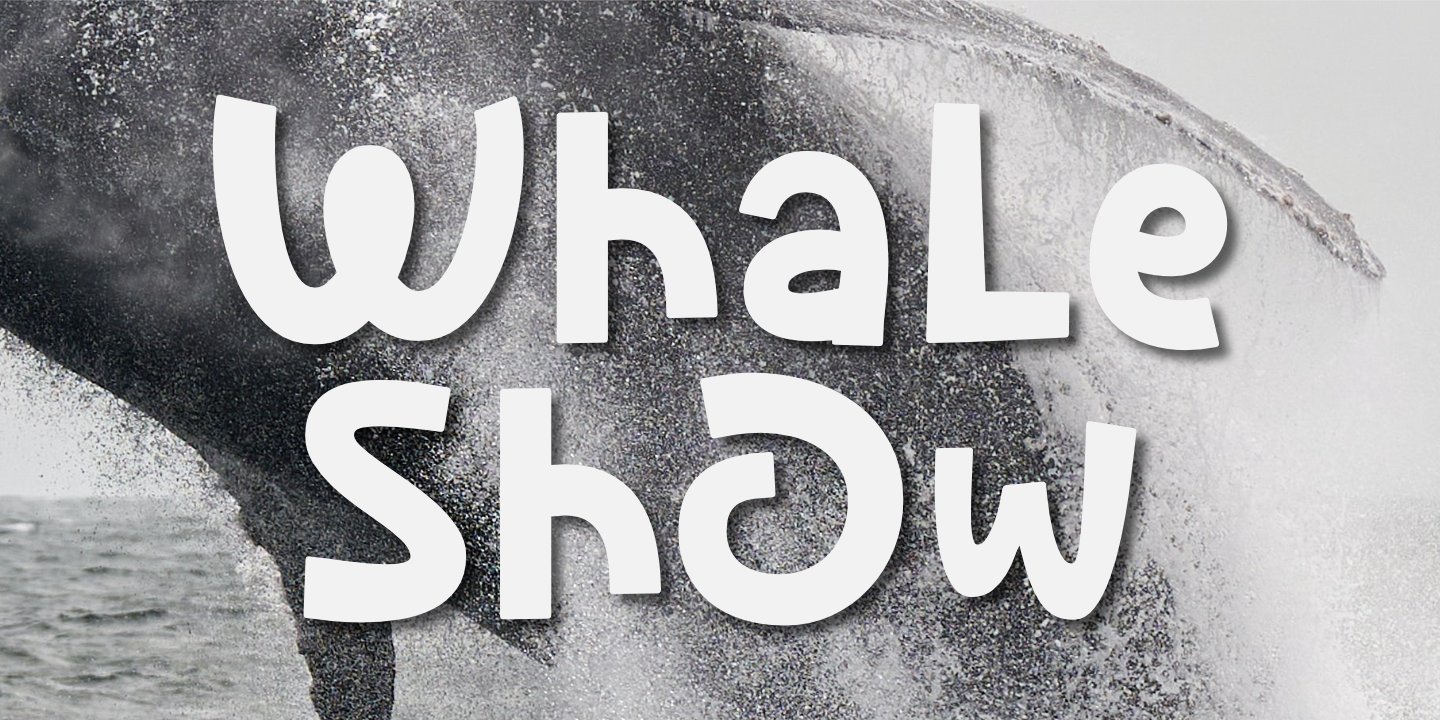
Whale Show Font excels in diverse design applications including marine wildlife exhibitions, ocean conservation campaigns, aquarium visitor centers, whale watching tour companies, marine biology educational materials, oceanographic research presentations, maritime museum displays, and spectacular marine entertainment venues that require oceanic sophistication and majestic marine elegance.
What makes Whale Show Font truly exciting is its magnificent embodiment of oceanic grandeur and marine spectacle that captures the awe-inspiring presence of the ocean's largest mammals and the breathtaking beauty of whale encounters that leave spectators speechless with wonder and deep respect for marine life. This majestic typeface features flowing, graceful letterforms with subtle wave-like elements that evoke images of gentle giants breaching the surface, their massive forms creating spectacular displays against endless ocean horizons. The font's marine character reflects the power and grace of whales in their natural habitat, making it perfect for brands that want to communicate oceanic majesty, marine conservation, and the spectacular experiences that connect humans with the natural world's most magnificent creatures. Its oceanic appearance creates immediate associations with marine wildlife and spectacular nature shows.
The Whale Show Font family includes multiple weights and marine variations designed to enhance oceanic communication. The collection features Light, Regular, Medium, Bold, and Black weights, each maintaining the font's characteristic marine appeal while offering different levels of oceanic presence. The family also includes alternate characters with varying wave effects, marine elements that simulate ocean movements, and stylistic sets that create flowing text arrangements reflecting the grace of whale migrations. Additional features include contextual alternates and oceanic ligatures that enhance the authentic, marine appearance.
Marine and conservation professionals consistently choose Whale Show Font Free Download for projects requiring authentic oceanic character and marine credibility. The font's majestic nature makes it particularly effective for aquariums, conservation organizations, and marine tourism companies targeting audiences who appreciate whale conservation and spectacular marine experiences. Its excellent readability across various applications ensures effective communication while maintaining the distinctive marine character that conveys oceanic authority and conservation importance.
The advanced OpenType capabilities of Whale Show Font include contextual alternates, stylistic sets, and comprehensive character support that accommodates marine terminology and conservation expressions while preserving the font's authentic oceanic character. The technical precision ensures consistent marine appearance across different conservation applications and oceanic platforms.
For creative professionals seeking a typeface that embodies genuine marine heritage and oceanic sophistication, Whale Show Font offers unparalleled majestic appeal and conservation elegance. Its ability to convey oceanic authority while maintaining functional communication makes it invaluable for marine organizations, conservation groups, and oceanic entertainment companies. The font's distinctive marine character ensures memorable oceanic impact across all applications, creating powerful visual identity systems that celebrate the magnificent beauty of whale encounters and the critical importance of marine conservation that protects these spectacular creatures and their ocean habitats for future generations.